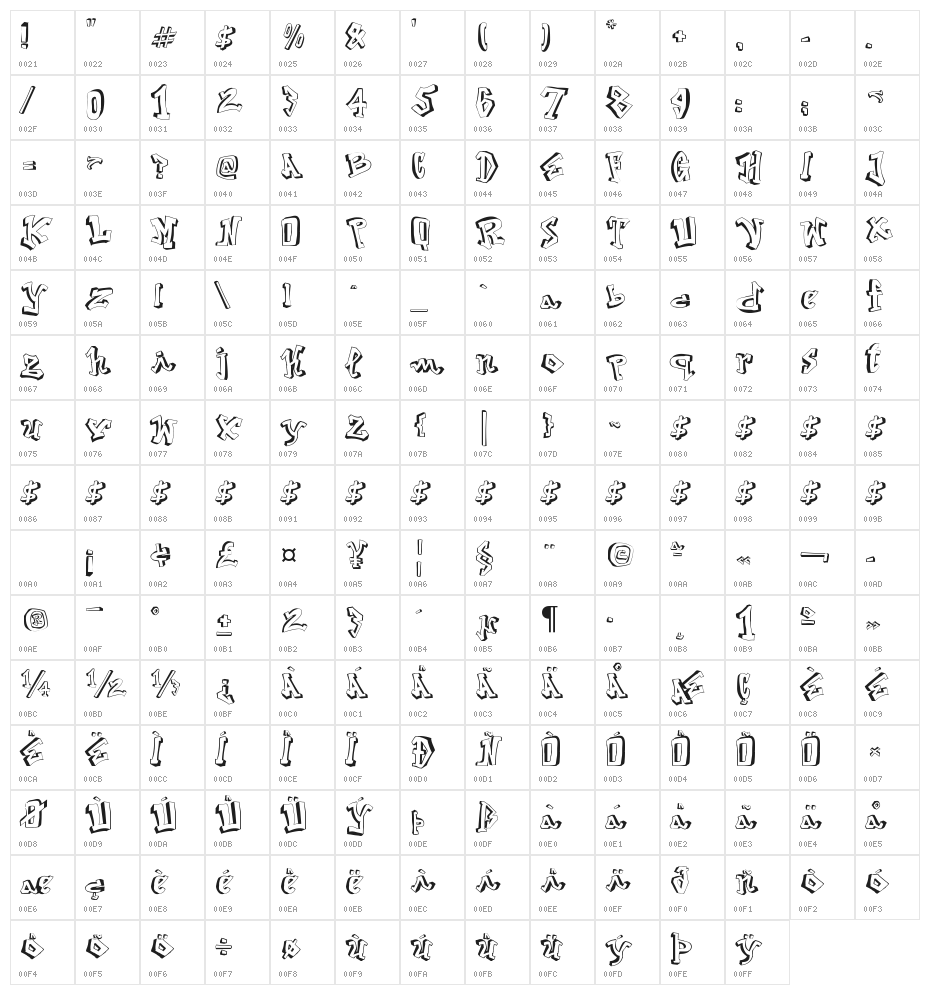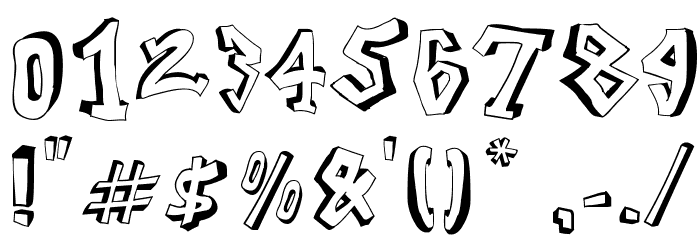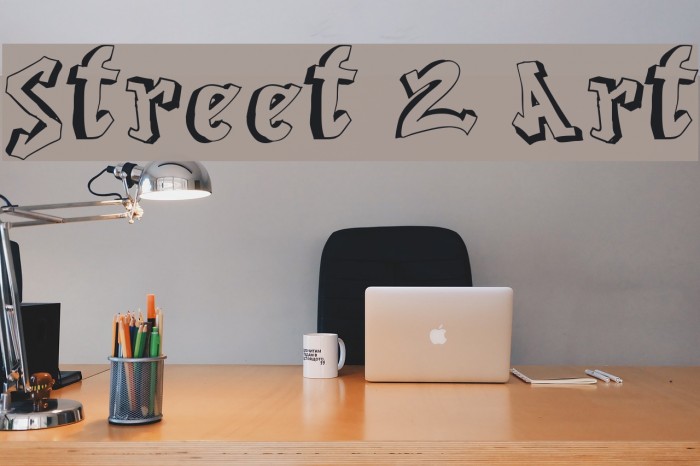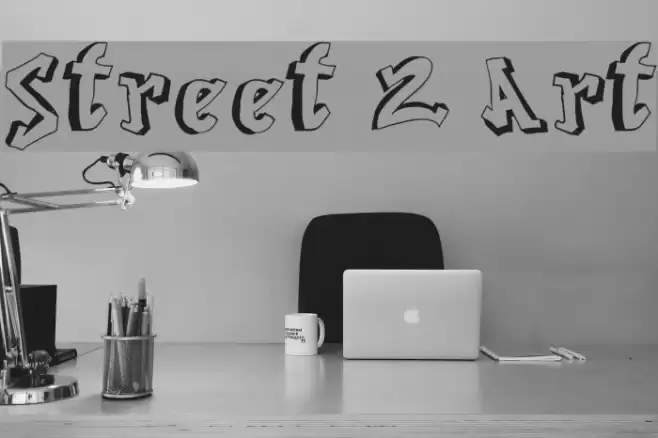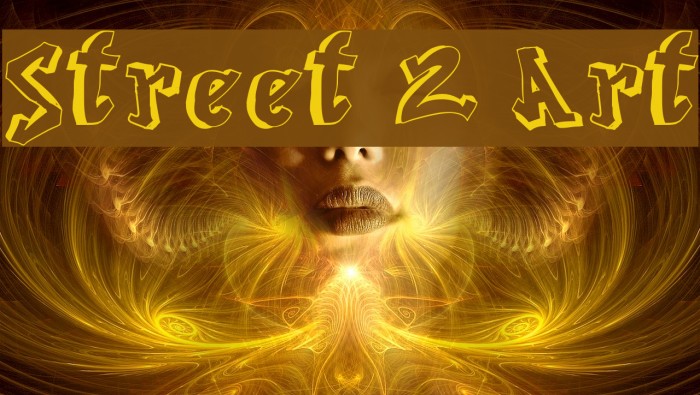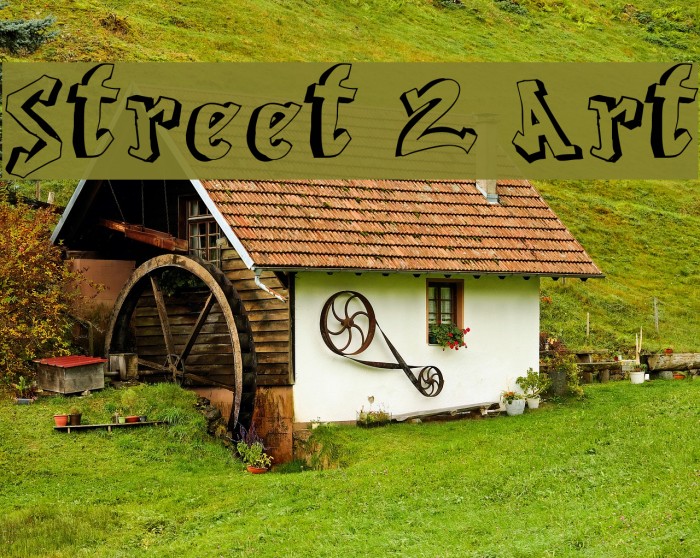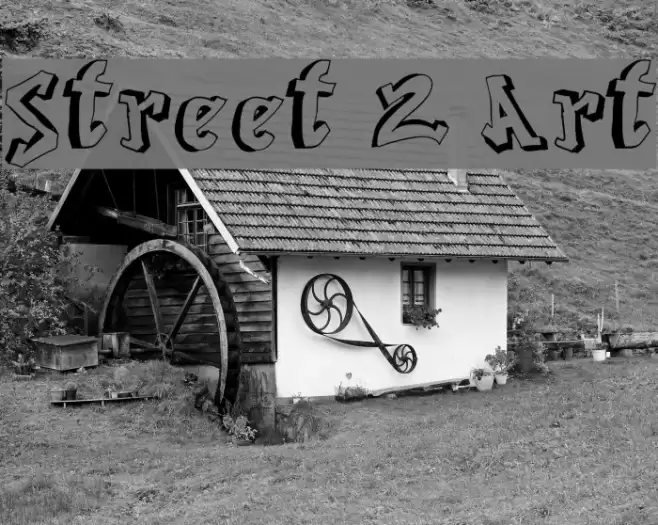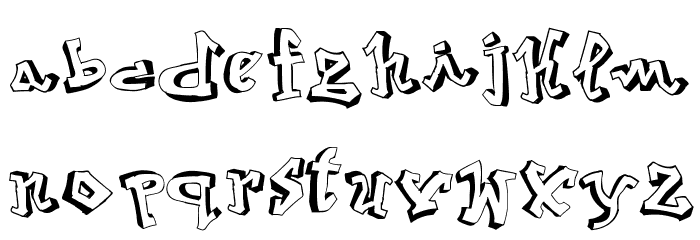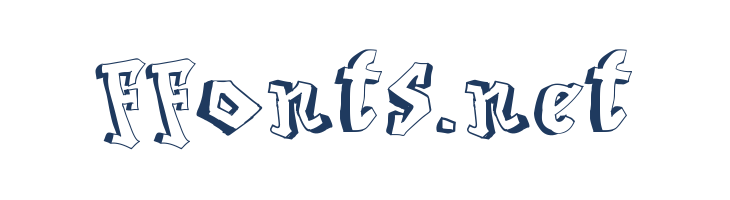
Street 2 Art Font
This font features a bold and dynamic graffiti-inspired style, characterized by its three-dimensional appearance and shadow effects. The letters are angular and edgy, with a playful yet rebellious vibe that captures the essence of street art. The uppercase and lowercase letters maintain a consistent style, while the numbers and special characters complement the overall aesthetic. The font's unique design makes it stand out, with each character appearing as if it has been spray-painted onto a surface, adding depth and texture.
| Overall Style | Modern, Urban |
| Proposed Projects | Ideal for urban-themed designs, streetwear branding, music album covers, and event posters. |